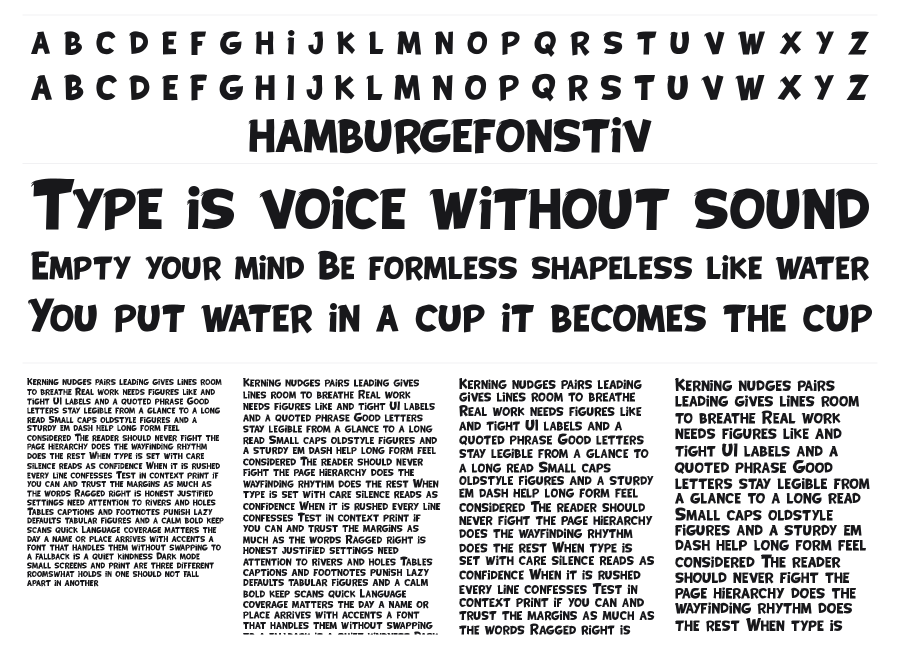
Ducko
Ducko is a bold, hand-drawn display font with chunky, cartoon-style characters full of rough edges and lively irregularity. Each letter looks like it was dashed off with a thick marker, giving layouts an energetic, comic-book feel. Works well for children's media, game titles, food packaging, and any project that needs warmth and personality over polish.